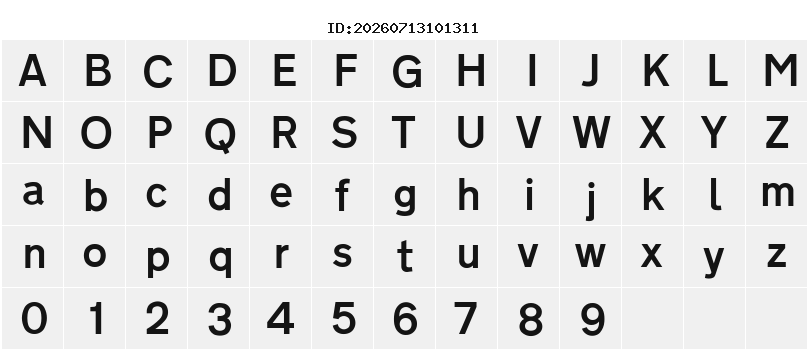
• Font Name: Raoul TRANSPORT Britannique
• Designer: Raoul & Compagnie
• Description: Font of British Road Signs + Contains Arrows for Road Signs - Police de la Signalisation Routière Britannique + Contient aussi des Flèches pour la Signalisation Routière PROUDLY MADE IN FRANCE by Raoul & Compagnie
Raoul TRANSPORT Britannique.ttf is a modern, elegant sans-serif font designed for ultimate readability and visual harmony. Perfect for branding, headlines, web design, and print materials.